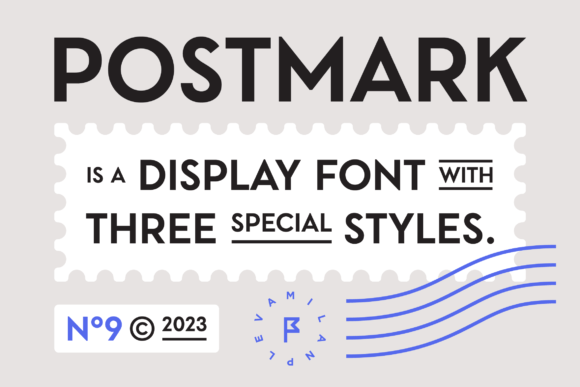
Introducing Postmark Font, the ultimate choice for those seeking the perfect blend of sophistication and creativity in their typography. Crafted by the talented milan.pleva24, this sans serif font is guaranteed to make your text posts stand out from the crowd.
With its clean and geometric design, Postmark Font exudes a modern and professional vibe that will elevate your content to new heights. But what truly sets this font apart are its three special styles, carefully crafted to add a touch of uniqueness and individuality to your words or sentences.
Whether you're looking to capture attention with captivating headlines, create memorable headers, design eye-catching logos, or enhance the visual appeal of your labels and packaging, Postmark Font is the ultimate tool to unleash your creativity. This versatile font can even add a touch of elegance to your magazine layouts and elevate the charm of your invitations.
But why should you choose Postmark Font over other options? The answer lies in its ability to evoke emotions and create a lasting impact on your audience. With its captivating design, this font captures the essence of modernity, making your text posts not only visually appealing but also emotionally engaging.
Imagine the curiosity sparked by the sleek lines and contemporary feel of Postmark Font as it adorns your headlines. Picture the admiration your audience will feel when they encounter your beautifully crafted headers, exuding professionalism and creativity. With Postmark Font, you have the power to leave a lasting impression on anyone who lays eyes on your content.
Don't settle for ordinary fonts when you can make a statement with Postmark Font. Unleash your creativity, captivate your audience, and transform your text posts into works of art. Experience the power of Postmark Font today and elevate your typography game to unprecedented levels.